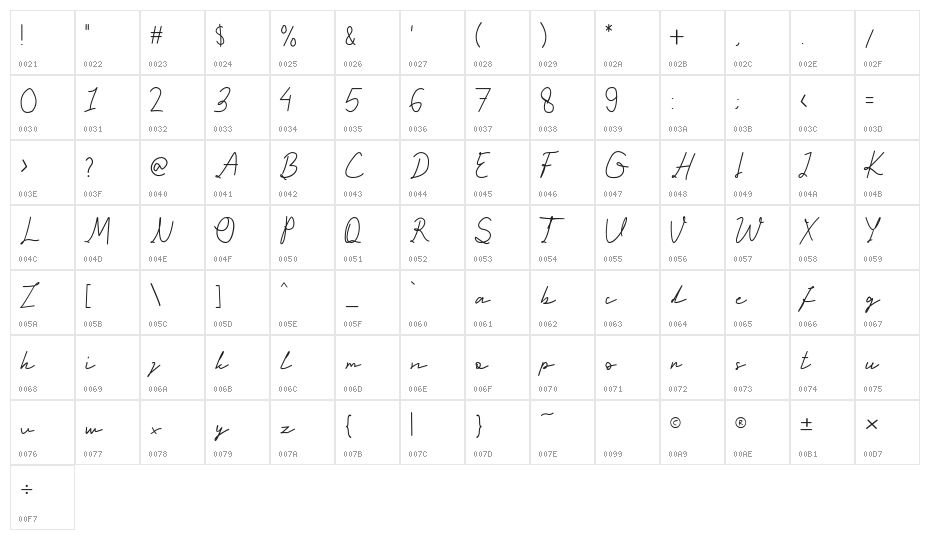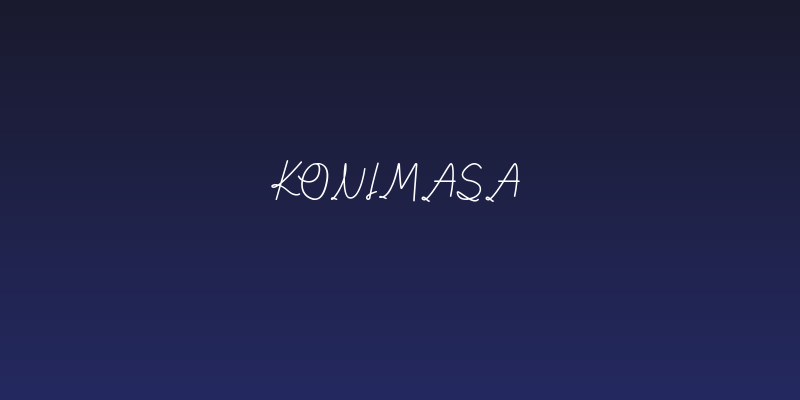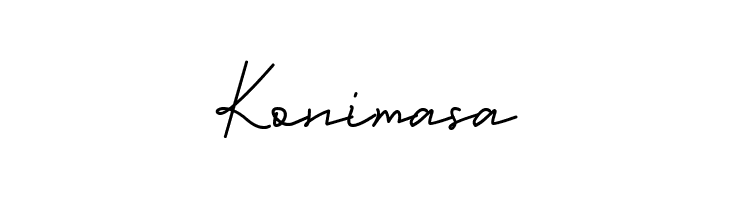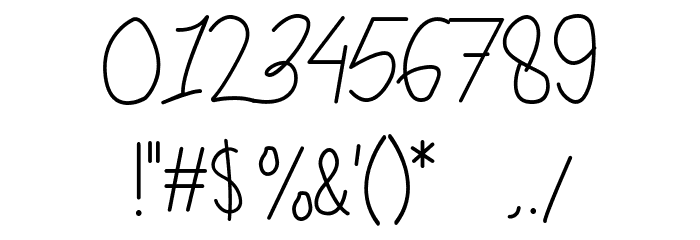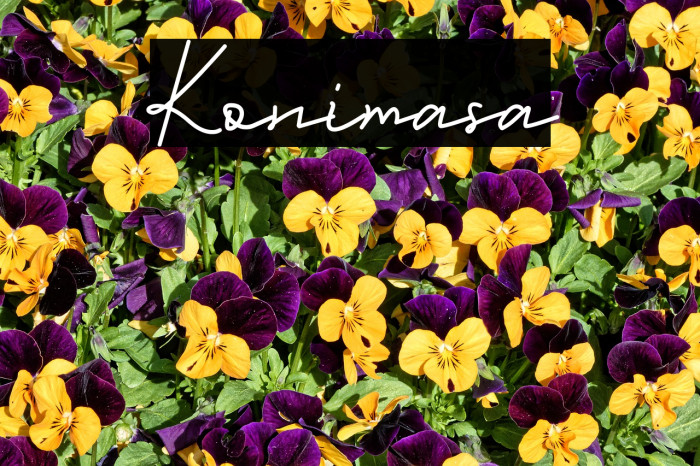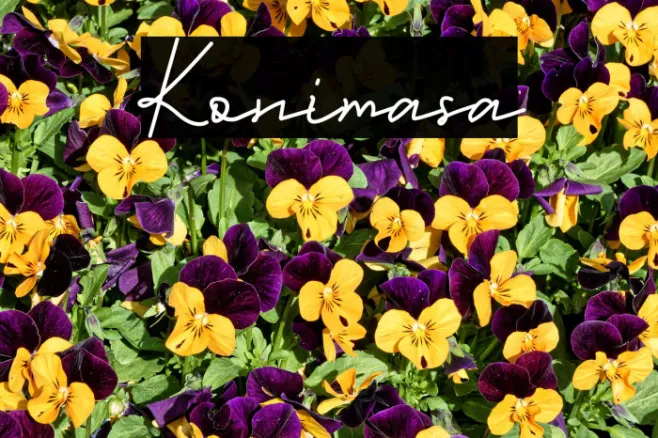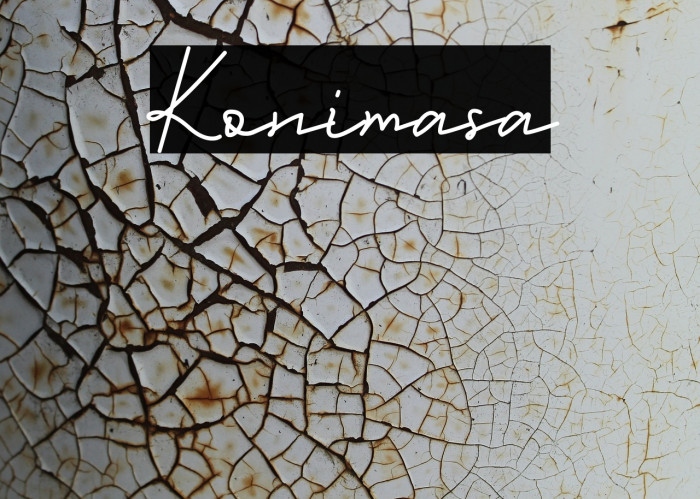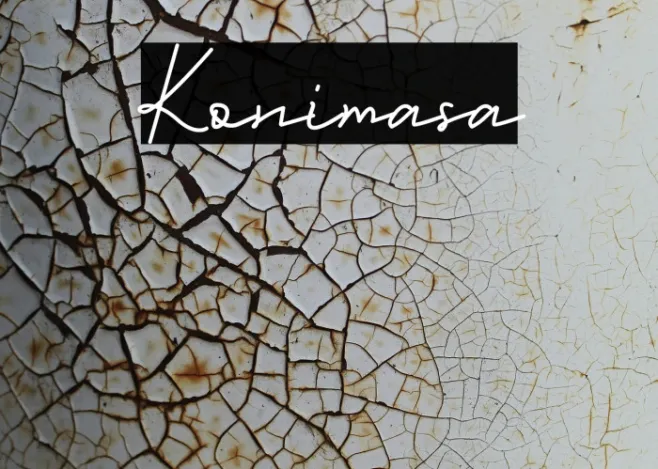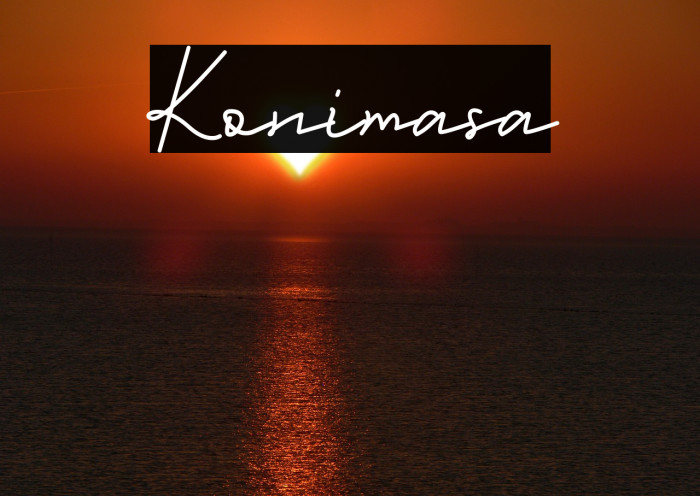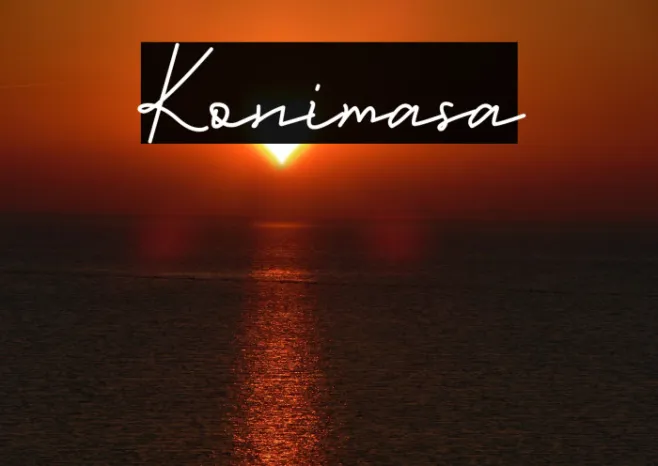
Konimasa Font
Konimasa Description
This font features a distinctive handwritten style with elegant, flowing characters that mimic the fluidity of cursive writing. The uppercase letters are slightly more structured, maintaining a balance between formality and casual flair. The lowercase letters exhibit a smooth, continuous stroke, enhancing the handwritten aesthetic. Numbers and special characters are consistent with the overall style, providing a cohesive look. The font's design is both artistic and legible, making it suitable for creative projects that require a personal touch.
| Proposed Projects | Ideal for wedding invitations, greeting cards, personal branding, and artistic projects. |